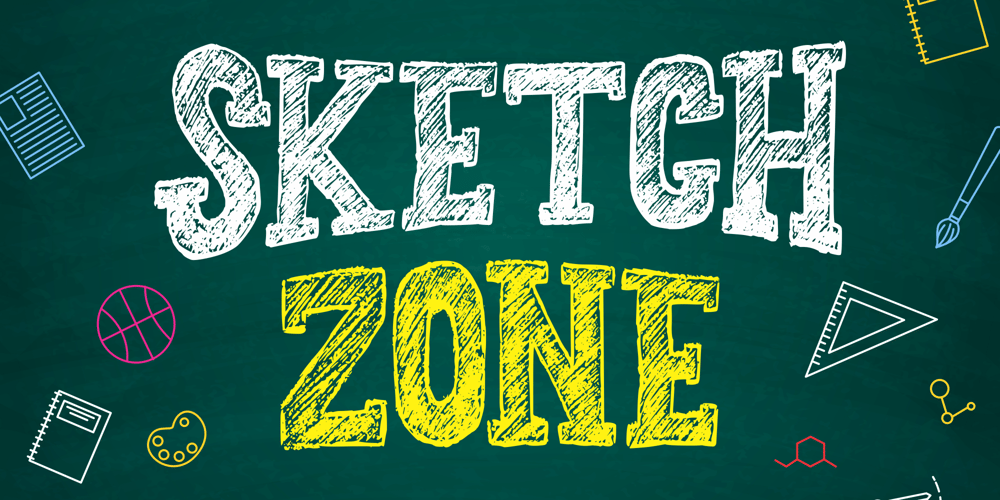
Sketchzone Font Family was designed by SU KASIH and published by Mozatype. Sketchzone contains 1 styles and family package options. Sketch Zone is a unique and interesting display font. Incredibly versatile, this font fits a wide pool of designs. Fall in love with its quirky style and use it to create spectacular projects!What’s Included :– Works on PC & Mac– Easy to use ( Installations )– Easy Convert to webfont– Compabilty Windows, Apple, Linux, Cricut, Silhouette and Other cutting machinesThanks for downloading, and I hope you enjoy it!